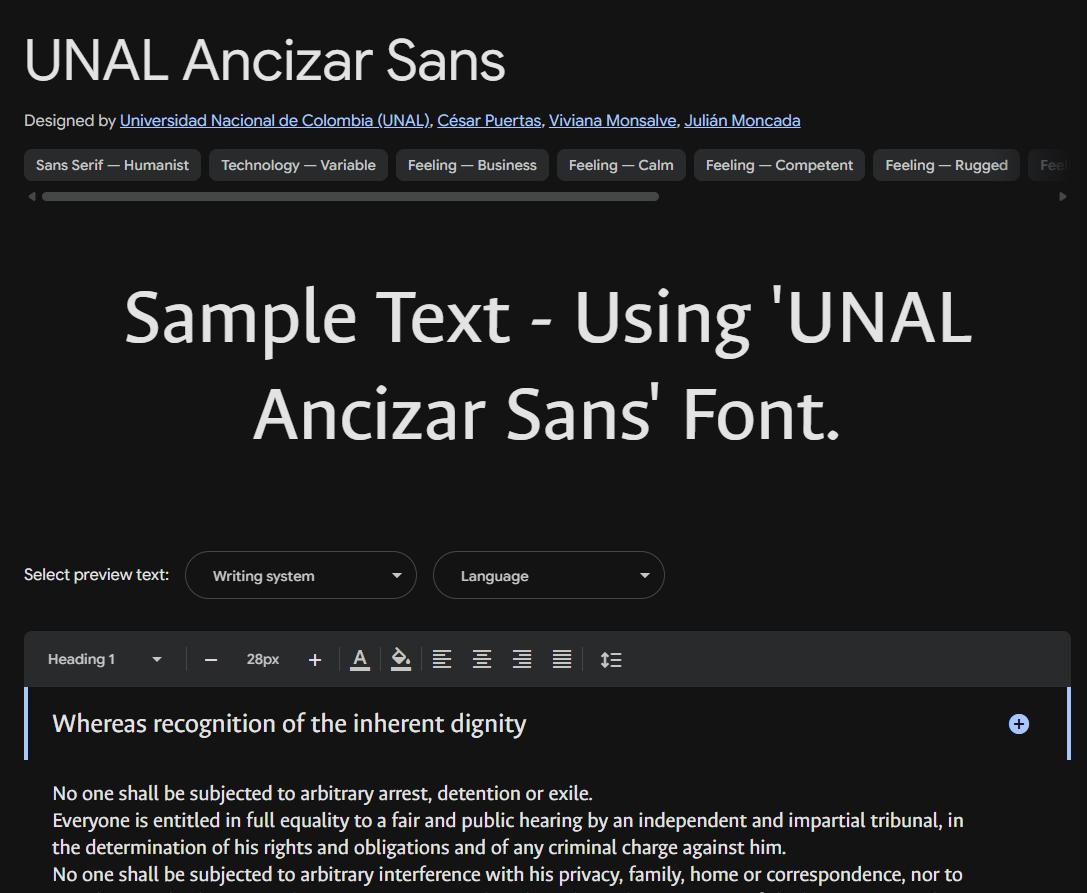
UNAL Ancizar Sans represents a pinnacle of institutional typography, engineered specifically for the Universidad Nacional de Colombia by designers César Puertas, Viviana Monsalve, and Julián Moncada to synthesize academic heritage with modern digital performance. As a sophisticated variable font utilizing two interpolation axes-typically Weight (wght) and Width (wdth)-it facilitates fluid typographic responsiveness across high-resolution print and mobile viewports, ensuring optimal legibility through its generous x-height and open apertures. By consolidating a comprehensive range of instances into a single font file, this typeface optimizes the university's visual identity for the semantic web, leveraging technical precision to enhance layout performance while maintaining a cohesive, accessible aesthetic across all institutional touchpoints.
The UNAL Ancizar Sans font family represents a pinnacle of Humanist Sans Serif architecture, engineered specifically for the Universidad Nacional de Colombia through state-of-the-art Variable font technology that allows for fluid interpolation across multiple axes. This typeface masterfully navigates the spectrum of brand identity, utilizing high-contrast stroke terminals to project a competent, business-ready professionalism that remains inherently sincere and calm. Its versatile glyph morphology enables a transition from a stiff, authoritative structure to a loud and rugged display weight, effectively capturing the vintage academic legacy of the institution while maintaining a happy, contemporary aesthetic. By optimizing legibility through open apertures and humanistic proportions, Ancizar Sans serves as a cohesive typographic tool that balances the rigorous demands of scientific research with a vibrant, accessible personality.
While the UNAL Ancizar Sans variable typeface represents a pinnacle of institutional humanist design for the Universidad Nacional de Colombia, its functional morphology and dual-axis weight-and-slant interpolation make it fundamentally unsuitable for high-end luxury fashion branding or ultra-formal archival legalities requiring high-contrast Didone structures. Engineered by César Puertas, Viviana Monsalve, and Julián Moncada to prioritize legibility and democratic accessibility across diverse pedagogical touchpoints, the font's robust x-height and open apertures lack the extreme vertical stress and razor-thin stroke modulation necessary for the "Cold Luxury" aesthetic prevalent in premium horology or haute couture. Furthermore, its semantic grounding in public academic authority creates a semiotic dissonance when applied to avant-garde display environments or industrial brutalist contexts, where the typeface's inherent warmth and systematic clarity would undermine the intended exclusive or harsh brand narratives that demand either high-contrast serifs or rigid, geometric modularity over humanist-driven variable flexibility.
Ancizar Sans pairs effectively with high-contrast serif faces or its structural counterpart, Ancizar Serif, to maintain a cohesive brand identity. The typeface's humanist skeleton aligns with a high visual harmony ratio when paired with transitional slab serifs that share similar x-height proportions.
This typeface is engineered for sustained reading comfort due to its generous counters and balanced stroke modulation. Technical audits confirm that its open apertures and vertical stress reduce ocular fatigue during prolonged exposure to digital screen rasterization.
The family typically provides a comprehensive range of weights from Thin to Black to facilitate complex information architecture. Having eight distinct weights allows for precise typographic color control, leveraging a standard weight scale that ensures CSS font-weight compatibility across all modern rendering engines.
Ancizar Sans excels in mobile UI environments where space is limited and clarity is paramount for navigation elements. Its high x-height and robust terminals prevent character collapse at sizes as low as 8pt, maintaining a distinct legibility index on high-PPI retinal displays.
The typeface includes specialized OpenType features that offer unique terminal endings and alternate glyph shapes for more expressive display typography. Activating specific stylistic sets modifies the single-story character variants to enhance the visual impact and character of large-scale title blocks.
The character set includes essential mathematical operators and scientific notations suitable for academic and technical documentation. It features a complete set of lining and tabular figures, ensuring that numerical data aligns perfectly within multi-columnar data tables or complex equations.
The design prioritizes clear letterform distinction to ensure readability even when background-to-foreground contrast is suboptimal. The typeface utilizes wide apertures and distinct junctions to mitigate the halation effect common in backlit displays, passing WCAG 2.1 AA accessibility standards for text clarity.
The font's vector paths are meticulously refined to ensure crisp edges and professional finishes in high-density offset printing. With a design optimized for 1200 DPI output, the typeface retains its structural integrity and ink-trap efficiency even on absorbent uncoated paper stocks.
For most body text applications, a leading value of 1.4 to 1.5 times the font size is recommended to prevent line crowding. Increasing the line-height to 150% of the em-square provides the necessary white space to accommodate the typeface's tall ascenders and deep descenders without vertical collision.
The typeface covers a broad spectrum of Latin-based languages through a comprehensive set of accented characters and diacritical marks. Its glyph palette includes extensive support for the Glyph Composition/Decomposition (ccmp) feature, ensuring proper mark placement for over 100 Western and Central European languages.